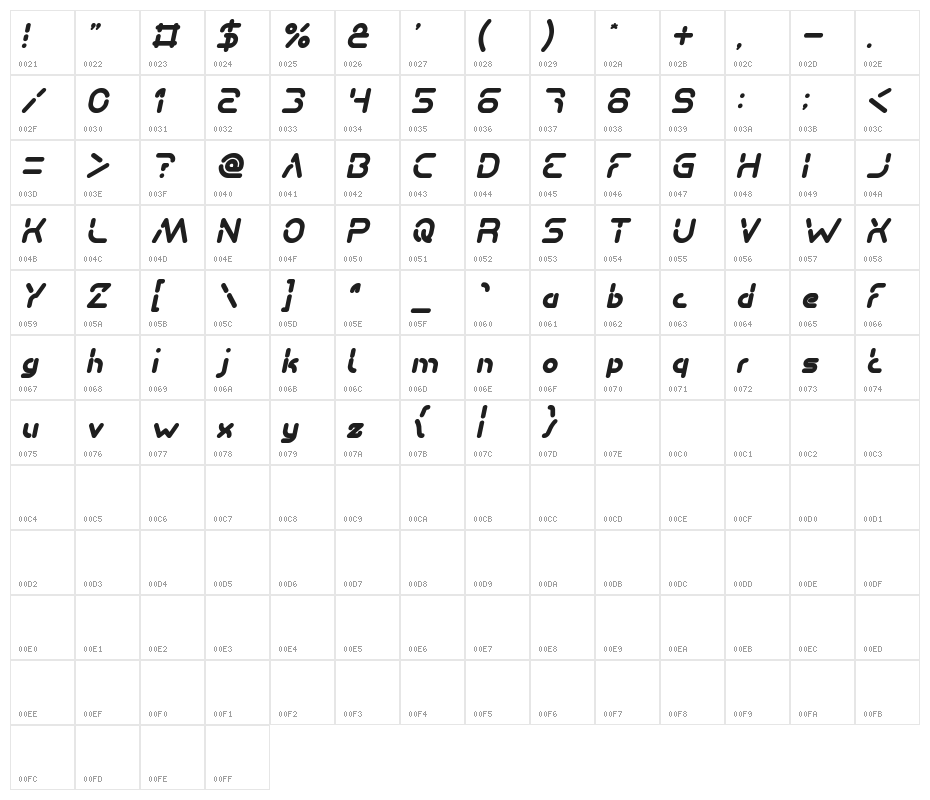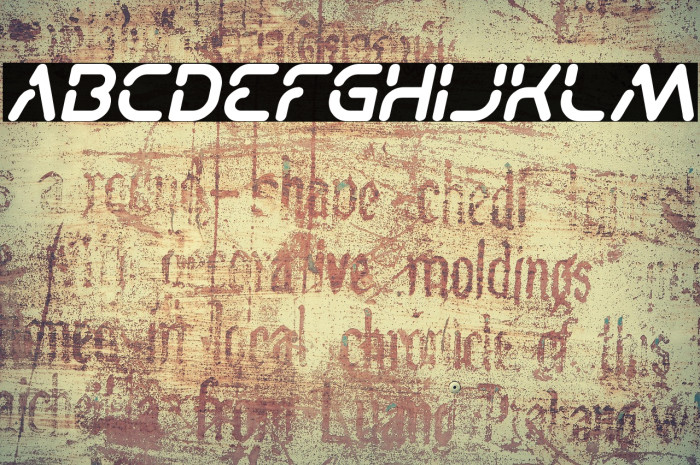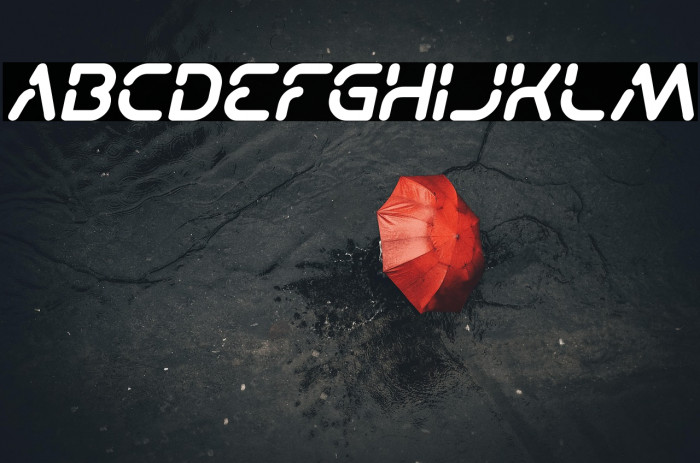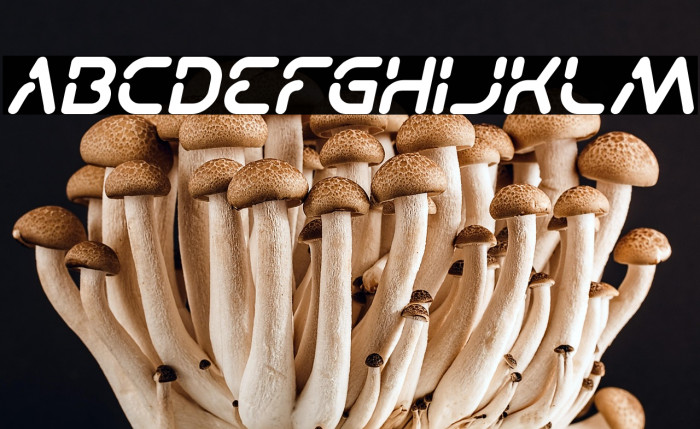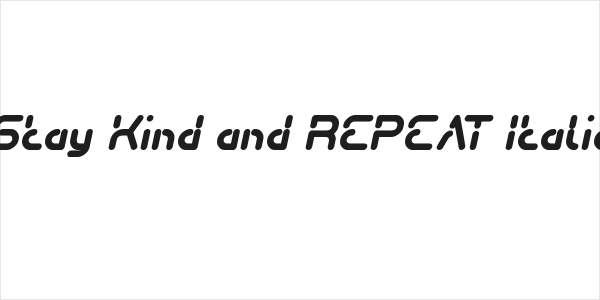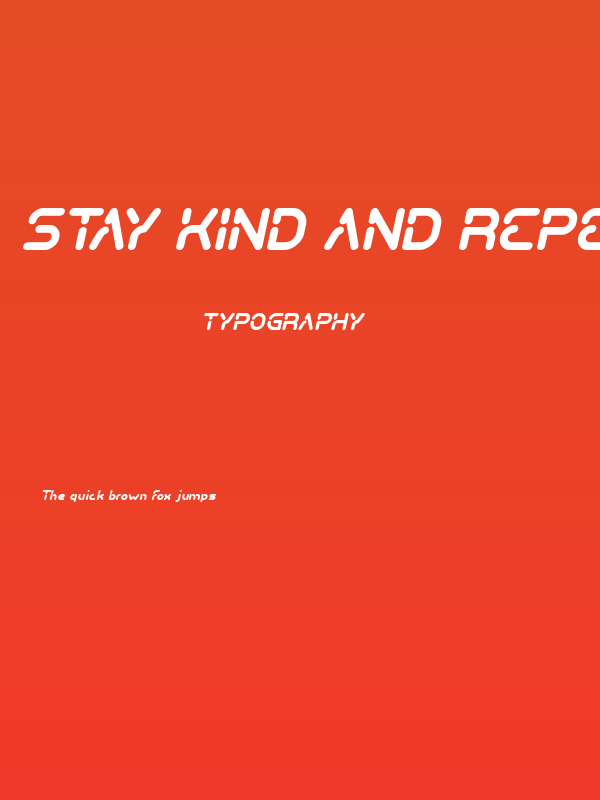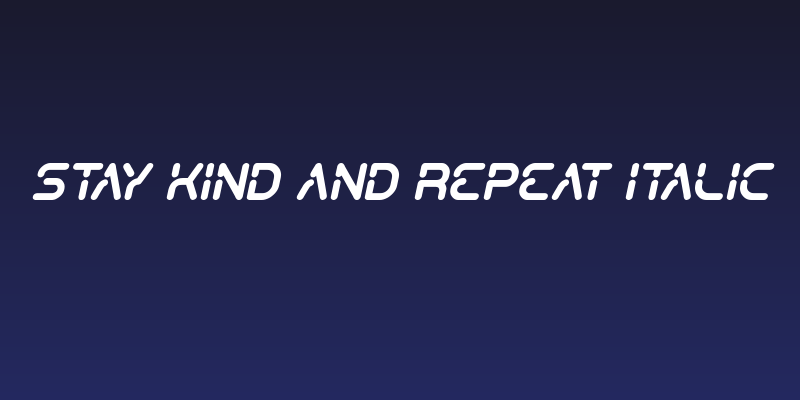
Stay Kind and REPEAT Italic Font
Stay Kind and REPEAT Italic Description
This font features a modern and futuristic design with rounded, bold characters that exhibit a distinct italic slant. The letters are uniformly thick, creating a cohesive and streamlined appearance. The uppercase and lowercase letters maintain a consistent style, with smooth curves and a slight forward tilt, enhancing the dynamic feel of the font. Numbers and special characters follow the same design principles, ensuring versatility across different uses. The font's boldness and unique style make it stand out, while its rounded edges add a friendly and approachable touch.
| Overall Style | Modern, Futuristic |
| Use Case | Logos, Headlines, Branding |
| Proposed Projects | Ideal for tech branding, futuristic designs, sports team logos, and dynamic advertising materials. |